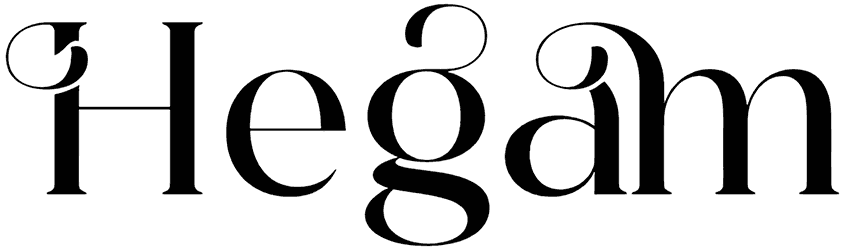
Hegam Font
Indeed, all of you believe that beauty gets meaning in the simple design. Here, we are presenting a luxury font with a trendy effect, as if it strives to show its chic and classic identification to all of us.
The luxury design of Hegam font with two various styles comes closer to getting you this opportunity to decorate your upcoming arrangement and develop your posters, wedding invitations, branding, fashion design, and much more.